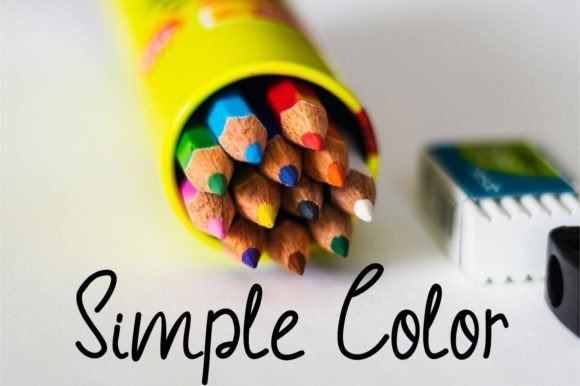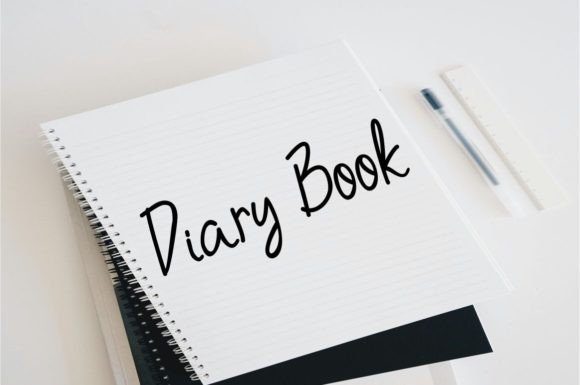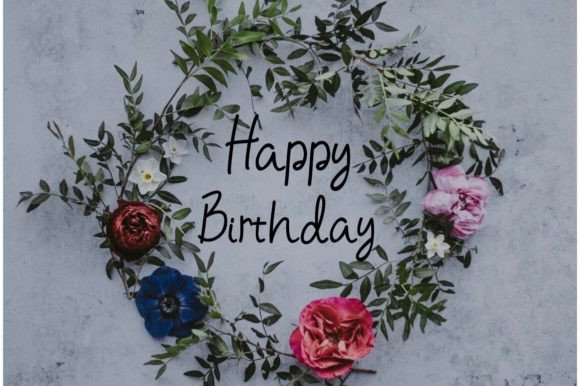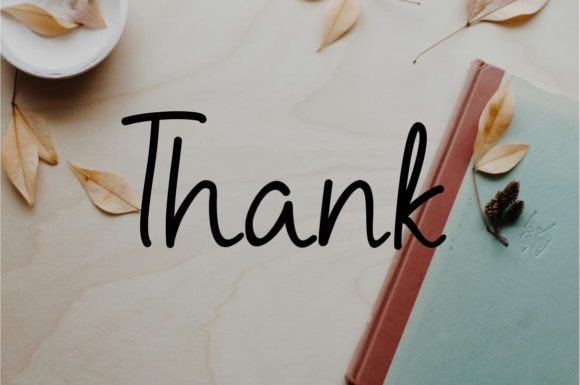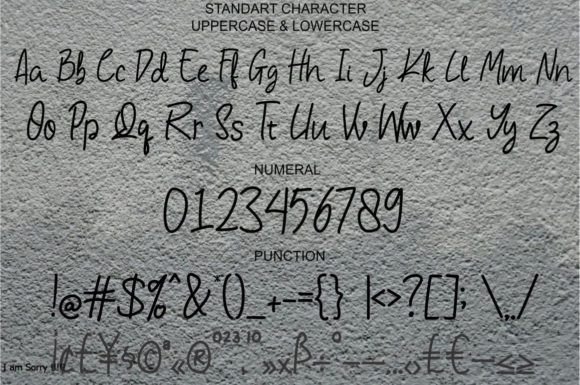
Dreamy Trace Font: Add Holiday Cheer to Your Designs
Are you looking for a font that captures the magic and warmth of the holiday season? Look no further than Dreamy Trace, a festive script font that brings joy and elegance to your designs. With its flowing curves and joyful swashes, Dreamy Trace is perfect for holiday cards, festive invitations, and seasonal branding.
The Perfect Holiday Font
Dreamy Trace is a carefully crafted font that embodies the spirit of the holiday season. Its elegant curves and whimsical swashes evoke a sense of wonder and enchantment, making it ideal for designers and crafters who want to add a touch of magic to their projects. Whether you’re creating holiday cards, invitations, or seasonal branding, Dreamy Trace is the perfect choice.
Key Features of Dreamy Trace
- Flowing, elegant curves: Dreamy Trace features beautiful, flowing curves that give your designs a sense of movement and elegance.
- Joyful swashes: The font’s joyful swashes add a touch of whimsy and playfulness to your designs, making them perfect for holiday-themed projects.
- Festive and celebratory feel: Dreamy Trace captures the magic and warmth of the holiday season, making your messages feel both personal and celebratory.
- Perfect for holiday cards and invitations: The font’s elegant curves and joyful swashes make it ideal for holiday cards, invitations, and other seasonal projects.
Uses for Dreamy Trace
Dreamy Trace is a versatile font that can be used in a variety of ways. Here are some ideas to get you started:
- Holiday cards: Use Dreamy Trace to create beautiful, personalized holiday cards that will make your loved ones feel special.
- Festive invitations: The font’s joyful swashes and elegant curves make it perfect for festive invitations, such as Christmas party invites or New Year’s Eve celebrations.
- Seasonal branding: Use Dreamy Trace to add a touch of holiday cheer to your seasonal branding, including logos, packaging, and advertising.
- Crafting projects: Dreamy Trace is also perfect for crafters who want to add a personal touch to their holiday projects, such as scrapbooking, journaling, or handmade cards.
Why Choose Dreamy Trace?
With so many fonts to choose from, why should you choose Dreamy Trace? Here are just a few reasons:
- Unique and eye-catching: Dreamy Trace is a one-of-a-kind font that will make your designs stand out from the crowd.
- Elegant and whimsical: The font’s elegant curves and joyful swashes strike the perfect balance between elegance and playfulness.
Tips for Using Dreamy Trace
Here are a few tips for getting the most out of Dreamy Trace:
- Experiment with different sizes and colors: Dreamy Trace looks great in a variety of sizes and colors, so don’t be afraid to experiment and find the perfect combination for your project.
- Pair with complementary fonts: Try pairing Dreamy Trace with complementary fonts to create a unique and eye-catching design.
- Use swashes and flourishes: The font’s joyful swashes and flourishes are a key part of its charm, so be sure to use them to add a touch of whimsy to your designs.
| Font Name | Dreamy Trace Font |
| Author | syakaltype |
Dreamy Trace is a festive script font that’s perfect for designers and crafters who want to add a touch of holiday cheer to their projects. With its flowing curves, joyful swashes, and elegant feel, it’s ideal for holiday cards, invitations, seasonal branding, and more. Whether you’re a professional designer or a crafter looking for a special font for your holiday projects, Dreamy Trace is a great choice.